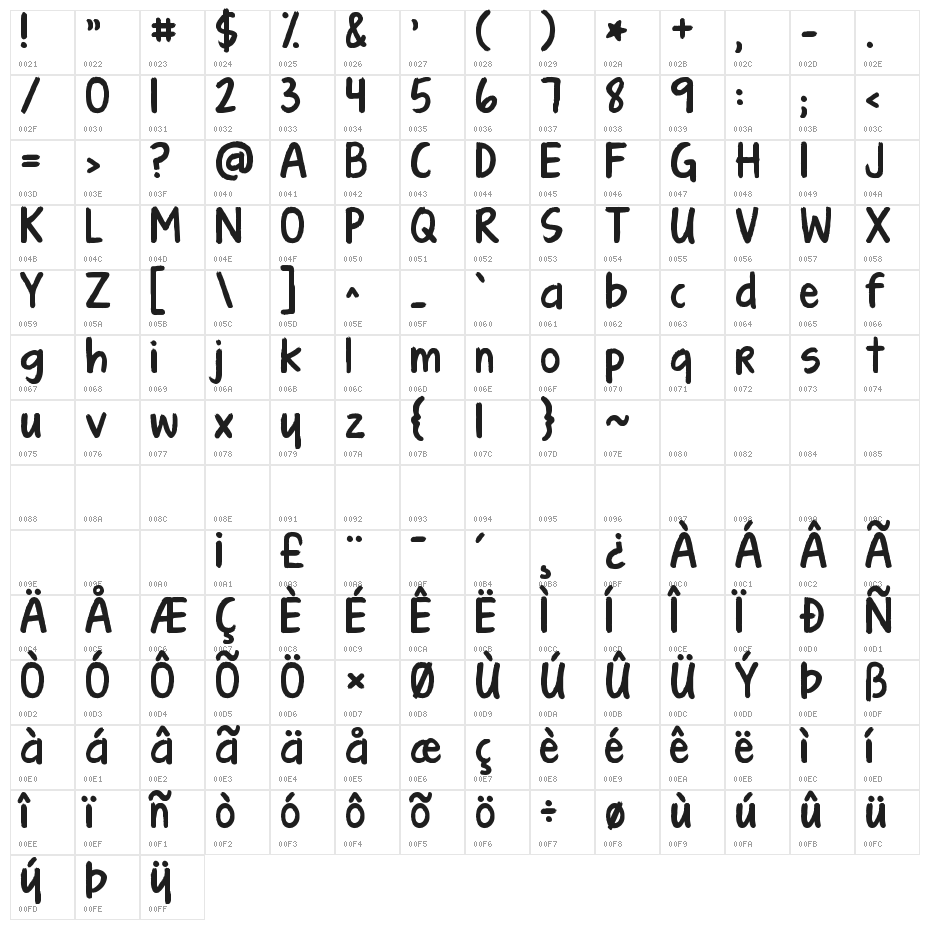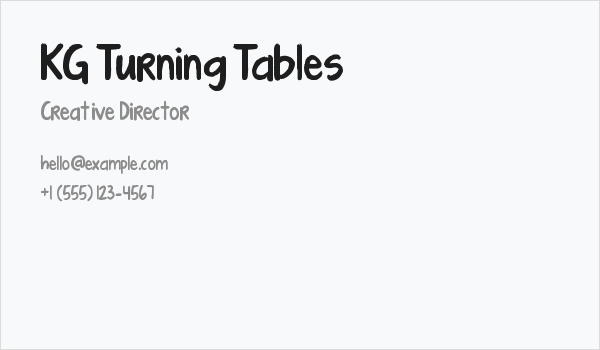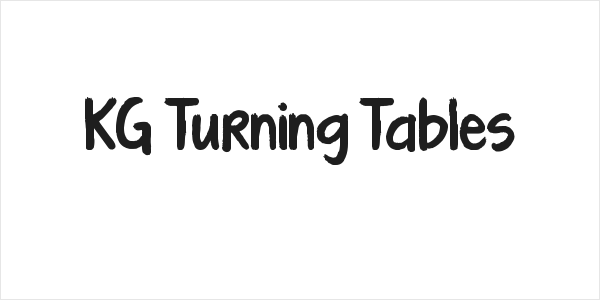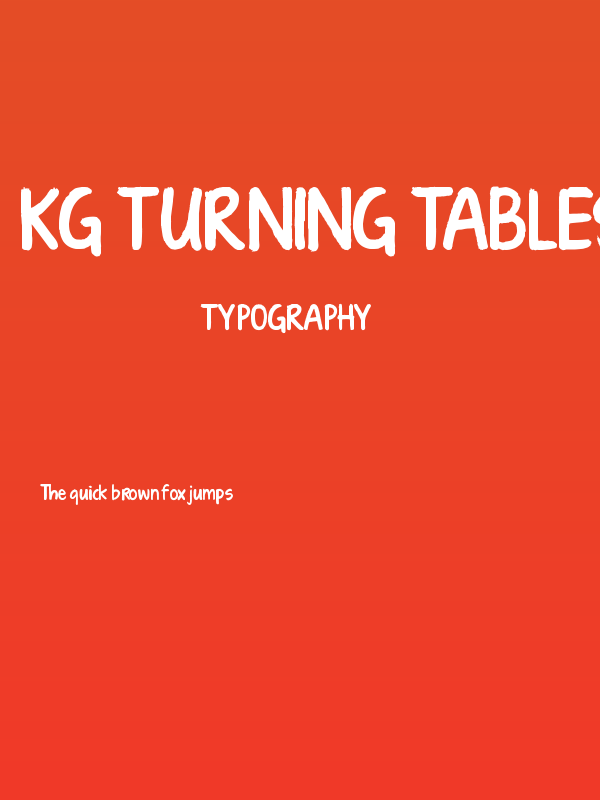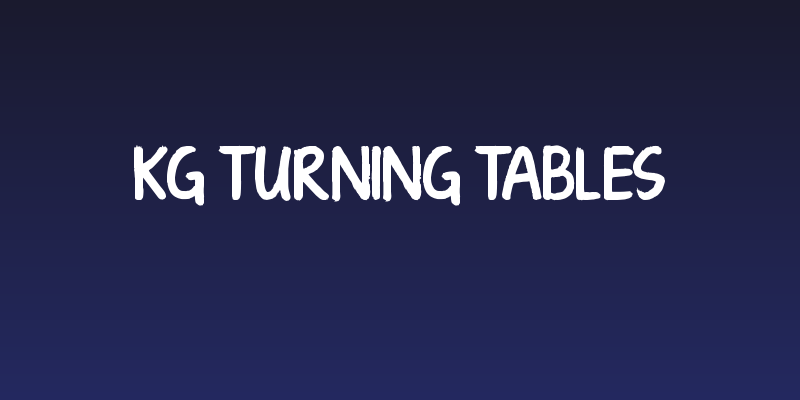
KG Turning Tables Font
KG Turning Tables Description
This font features a bold, handwritten style with a playful and informal appearance. The characters are slightly irregular, giving it a casual and approachable feel. The strokes are thick and consistent, providing a strong presence on the page. The uppercase and lowercase letters maintain a cohesive look, while the numbers and special characters complement the overall style. This font is ideal for projects that require a personal touch or a creative flair, such as invitations, posters, or social media graphics. Its unique character shapes and boldness make it stand out, ensuring that any text is both readable and visually appealing.
| Proposed Projects | Ideal for invitations, posters, social media graphics, and creative projects requiring a personal touch. |